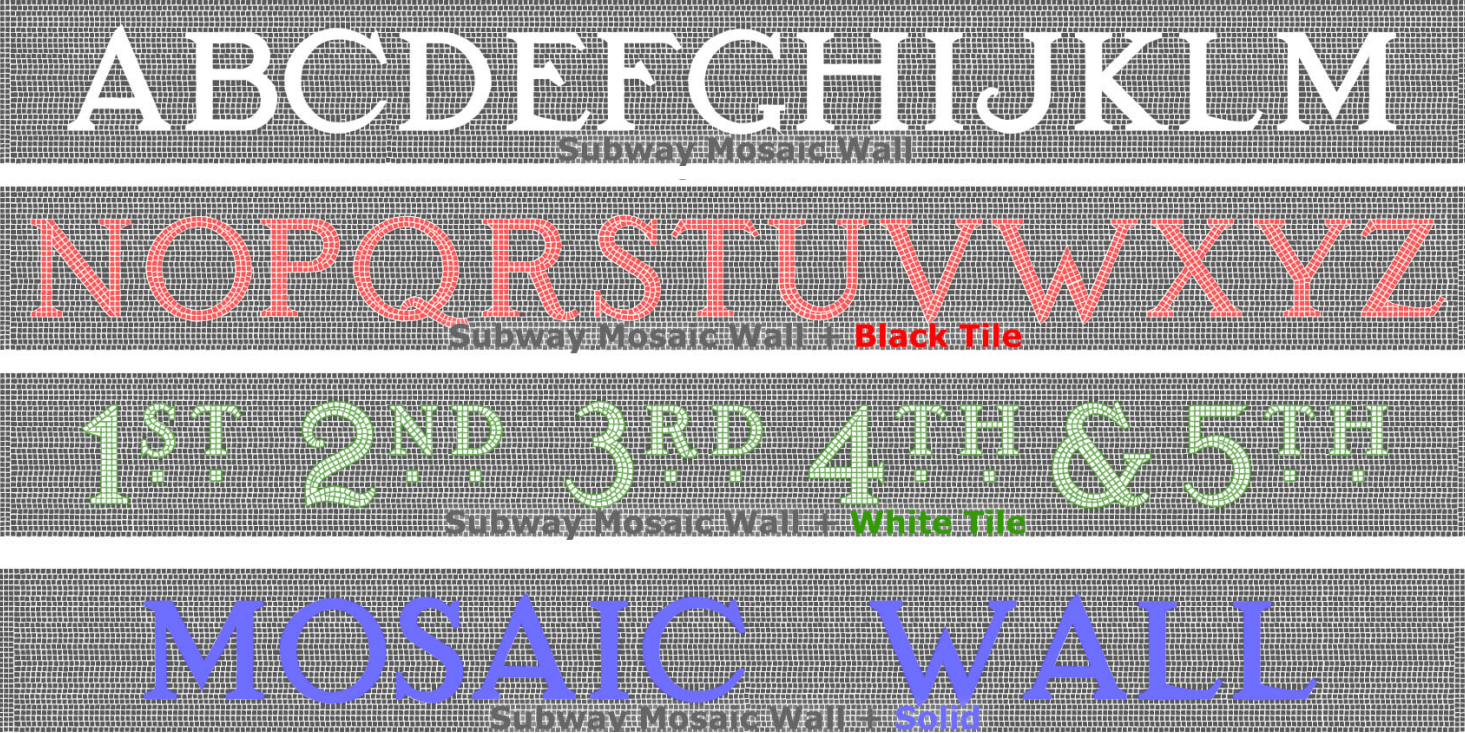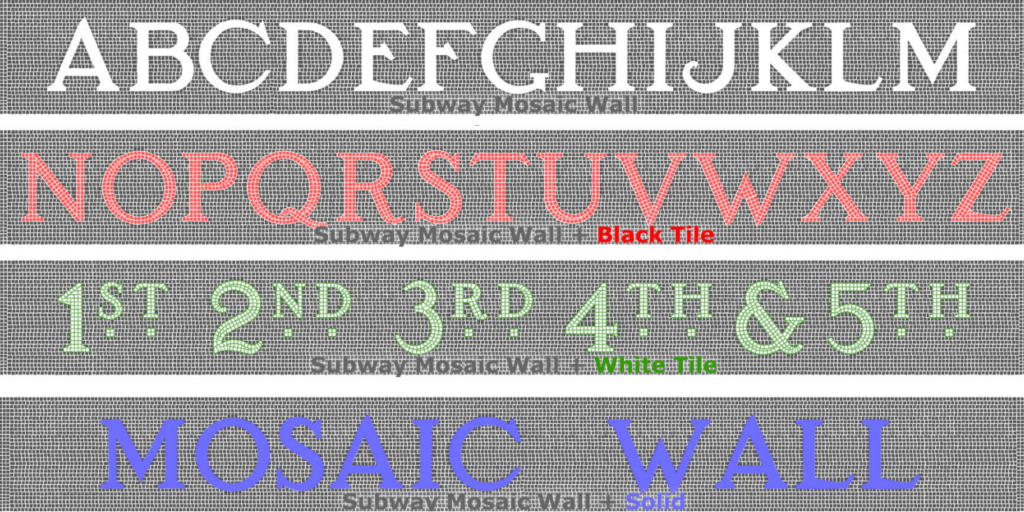
About Subway Mosaic Wall
Like the originals, the fonts of SUBWAY MOSAIC WALL were inspired bythe classic NYC subway signs. This version includes the mosaic background around each letter. Black Tile, White Tile, and Solid fonts can be layered in other colors for a realistic…